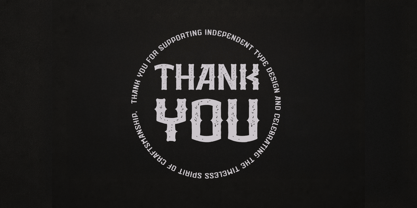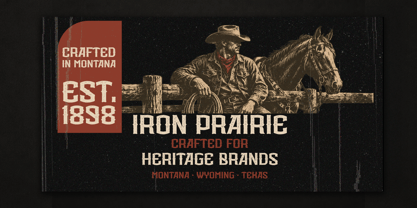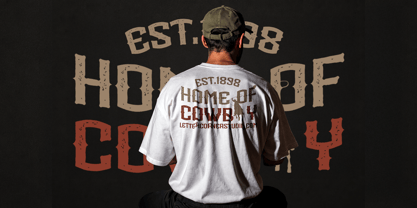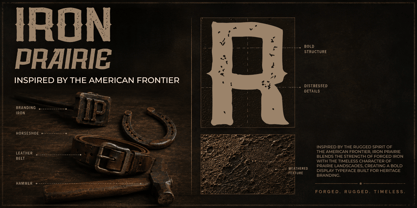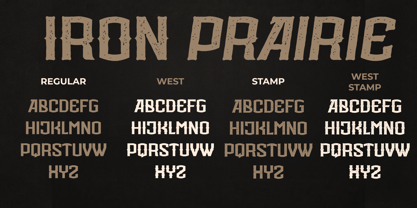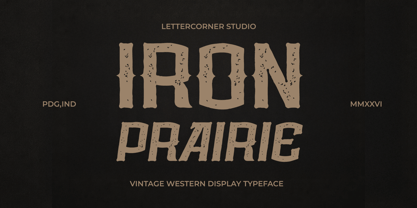
Iron Prairie
by Mevstory Studio
Iron Prairie
Iron Prairie is a bold slab serif display font built for brands that want to look like they've been forged, not printed. Inspired by frontier signage, tin-stamped labels, and old mining town posters, its letterforms are wide, muscular, and unapologetically vintage.
The family ships in 4 core styles — Regular, West, Stamp, and Stamp West — each paired with a matching Italic, for 8 fonts total.
• Regular — clean, confident slab serif construction, ready for modern rustic branding.
• West — hand-carved, weathered edges that feel stamped from an old wood block.
• Stamp — a distressed ink-stamp texture, like it was pressed by hand onto kraft paper.
• Stamp West — both effects combined for maximum aged, worn-in character.
Whether you're branding a craft whiskey label, a western-themed logo, a folk/country album cover, or a rustic restaurant menu, Iron Prairie brings instant frontier authenticity to your design.
Perfect for: logos, labels, packaging, posters, apparel, signage, and any project that needs a rugged, vintage-Americana feel.